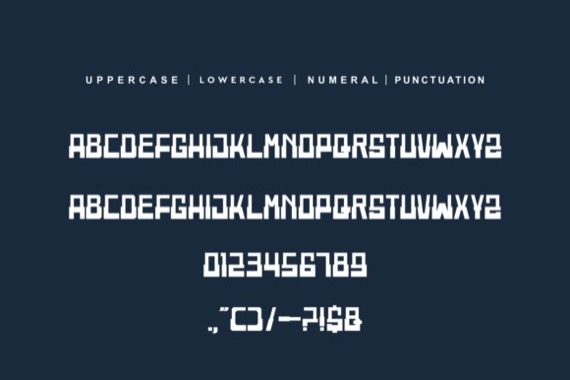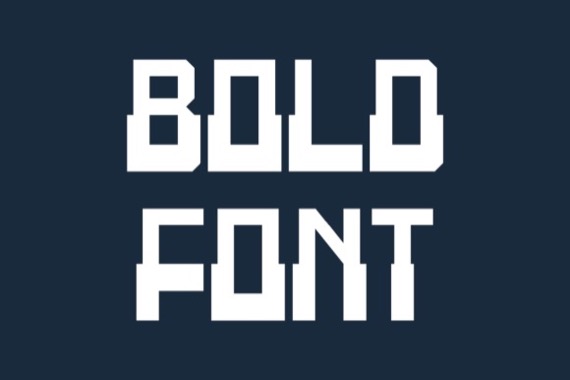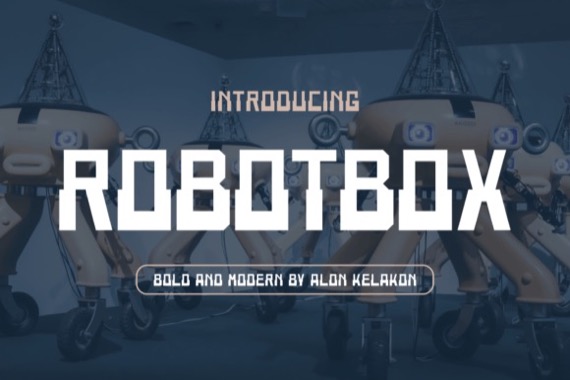
Robotbox is a bold and assertive sans serif font that was created and released by Alonkelakon. No matter the topic, this font will be an incredible asset to your fonts’ library, as it has the potential to elevate any creation.
Robotbox Decorative Display Font